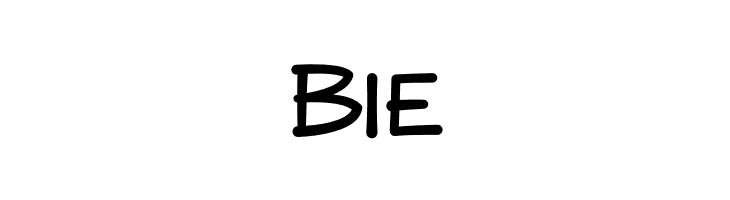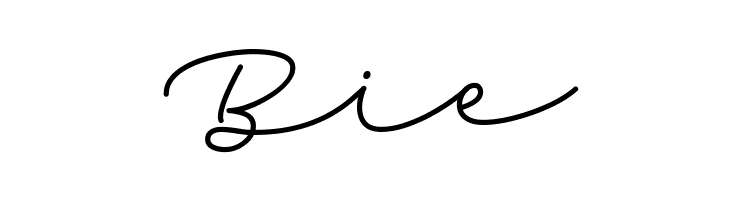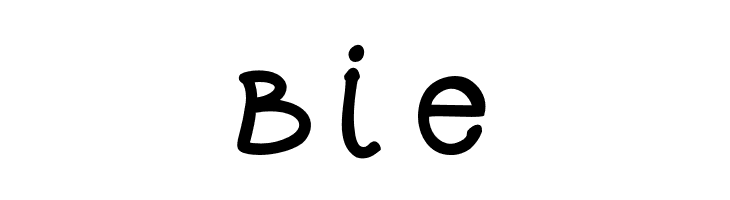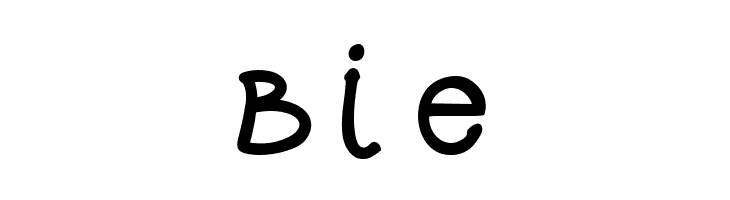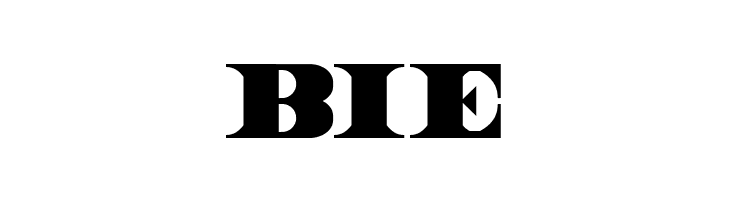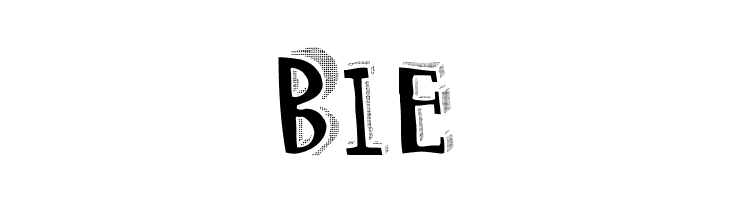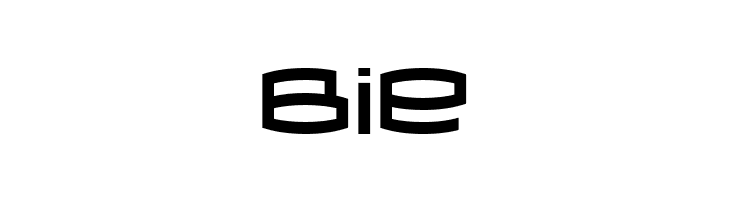
A modern-vintage font with smooth curves and consistent stroke width.
A playful and expressive handwritten script font with dynamic strokes.
A cursive, italic font with a flowing, elegant style.
A playful, heart-themed font with bold, rounded characters.
A playful, bold font with a hand-drawn, whimsical style.
A playful, handwritten-style font with smooth, rounded strokes.
A playful, cartoon-like font with rounded, hand-drawn characters.
A bold, playful font with geometric shapes and whimsical curves.
A bold, playful font with thick strokes and a modern style.
A bold, rounded font with a playful and friendly style.
A playful, handwritten font with tall, narrow letters and rounded edges.
A modern, high-contrast font with geometric elements and stylish flair.
A bold serif font with a classic yet modern style.
A bold, hand-drawn font with textured, brush-like strokes.
A playful, rounded font with bold, smooth curves and a friendly appearance.
A decorative and intricate font with Gothic-inspired embellishments.
Bold, gothic blackletter font with sharp, dramatic strokes.
A classic serif font with elegant strokes and moderate contrast.
A sleek, modern sans-serif font with geometric lines and balanced characters.
A modern, geometric sans-serif font with clean lines and consistent stroke width.
A bold, modern font with clean lines and geometric shapes, perfect for impactful designs.
A bold, geometric font with clean lines and a modern aesthetic.
A sleek, modern font with clean, geometric lines and a minimalist aesthetic.
A sleek, geometric font with clean lines and a modern aesthetic.
A flowing, cursive script font with elegant, interconnected strokes.
An elegant and flowing script font with high contrast and graceful swashes.
A playful, rounded font with smooth curves and consistent stroke width.
A bold, high-contrast serif font with dramatic strokes and a classic yet modern appeal.
A bold serif font with strong, angular serifs and a classic Western feel.
An elegant, flowing script font with a classic calligraphic style.
A futuristic, geometric font with bold, angular characters.
A playful, handwritten font with rounded, fluid strokes and consistent weight.
A playful, handwritten-style font with smooth, rounded characters.
A bold, rounded font with smooth curves and uniform strokes.
A bold, textured font with a hand-drawn, artistic style.